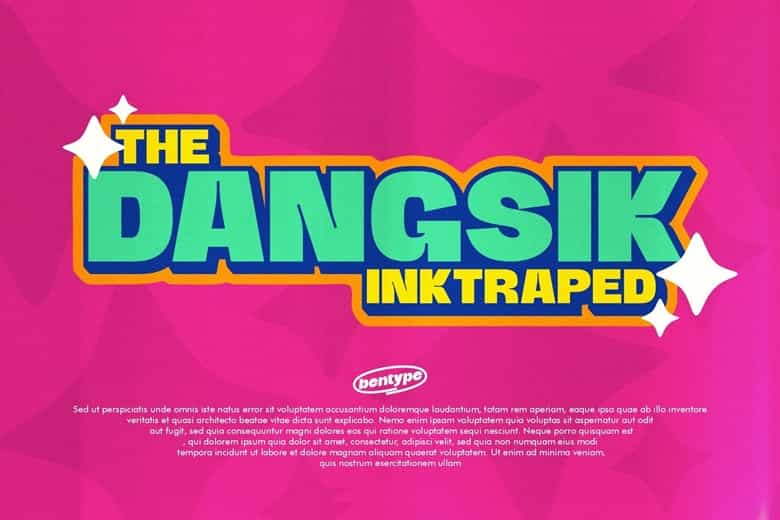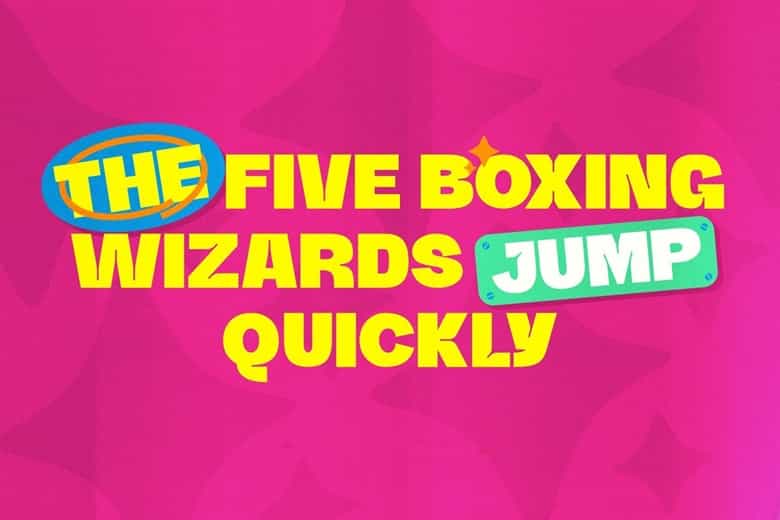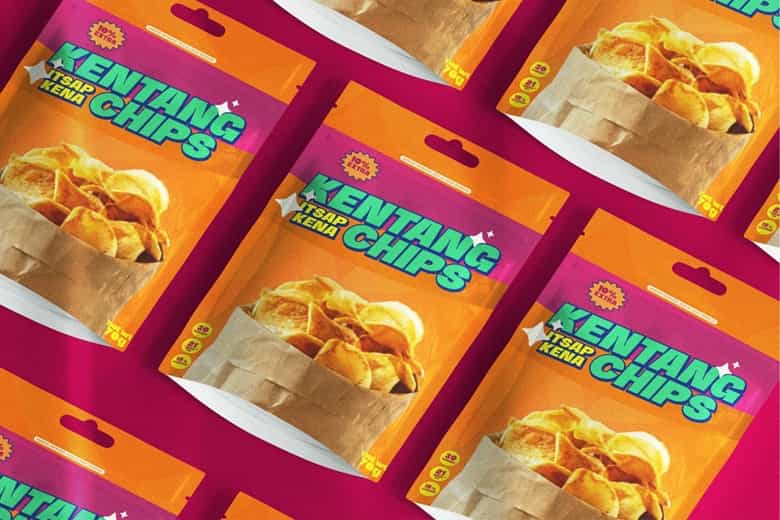
Dangsik is a display font that has cool appearance and is rather bold for use. Besides the structure, there are ink trapped details that enhance the entire structure of the composition. This font is very up to date when used with different design colors. If you are here to design book covers, brand logos or any modern and contemporary design then Dangsik is here for you.